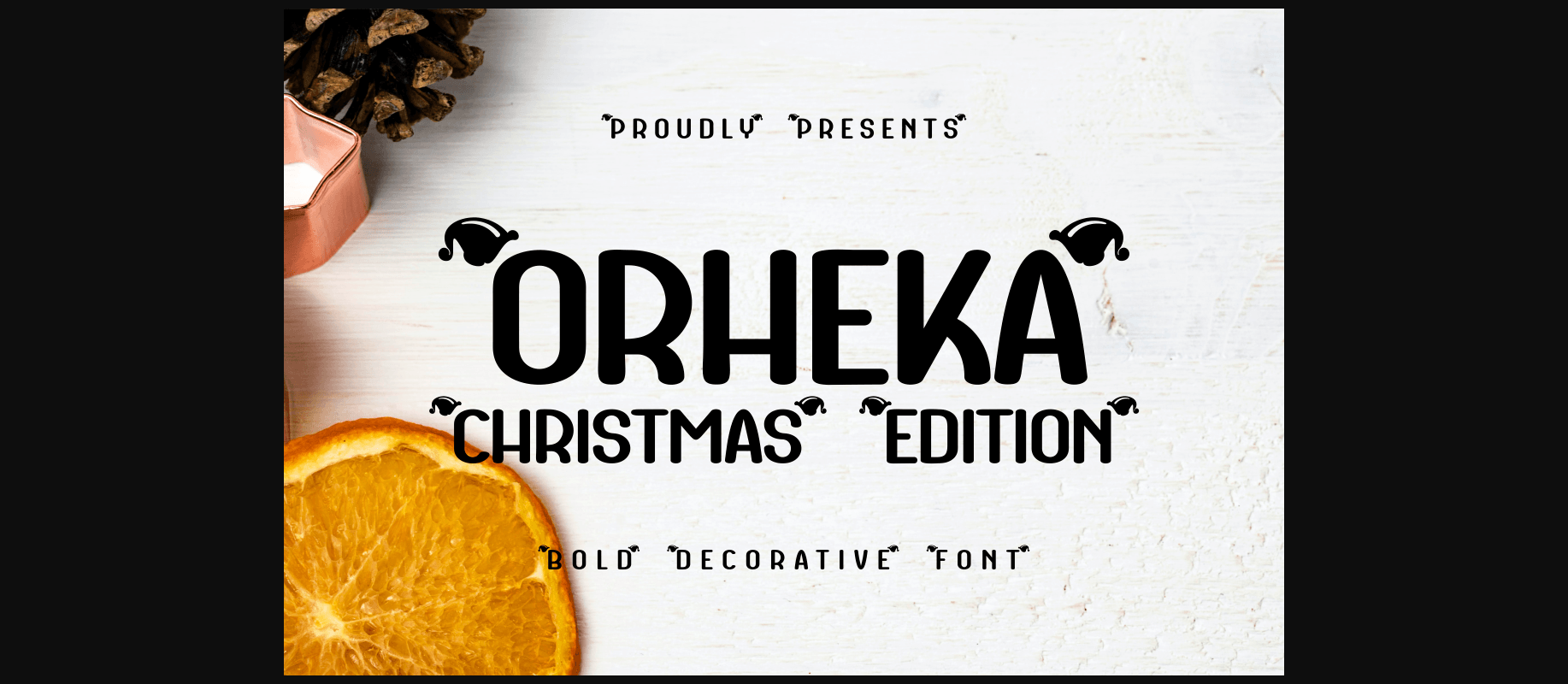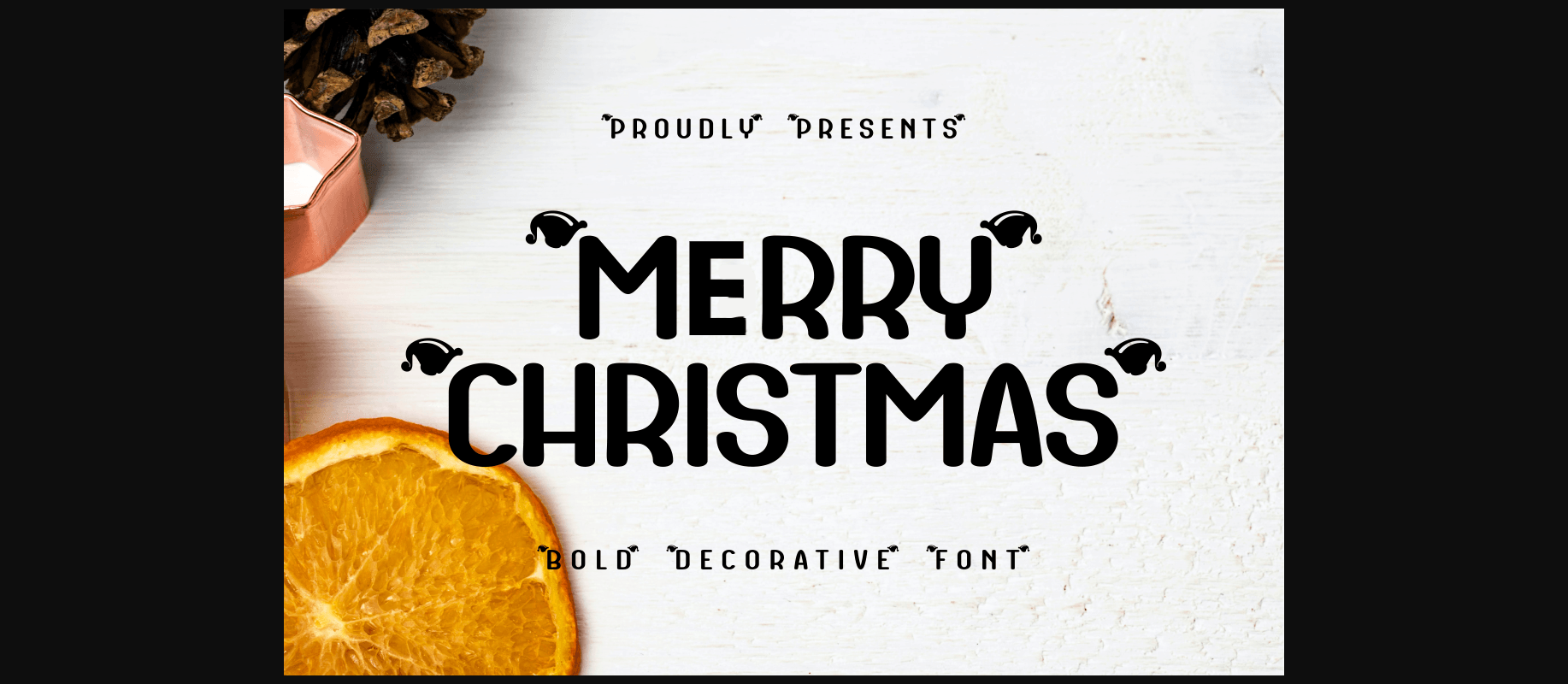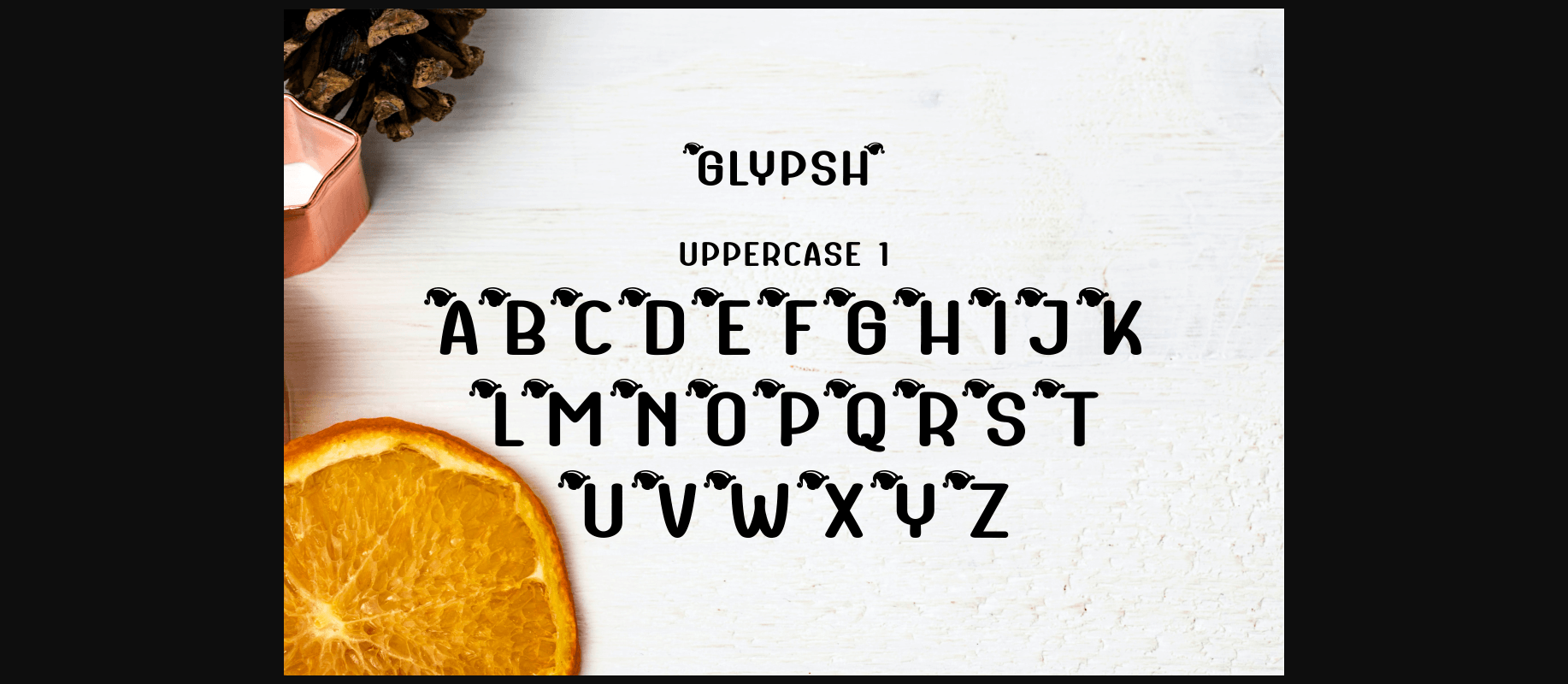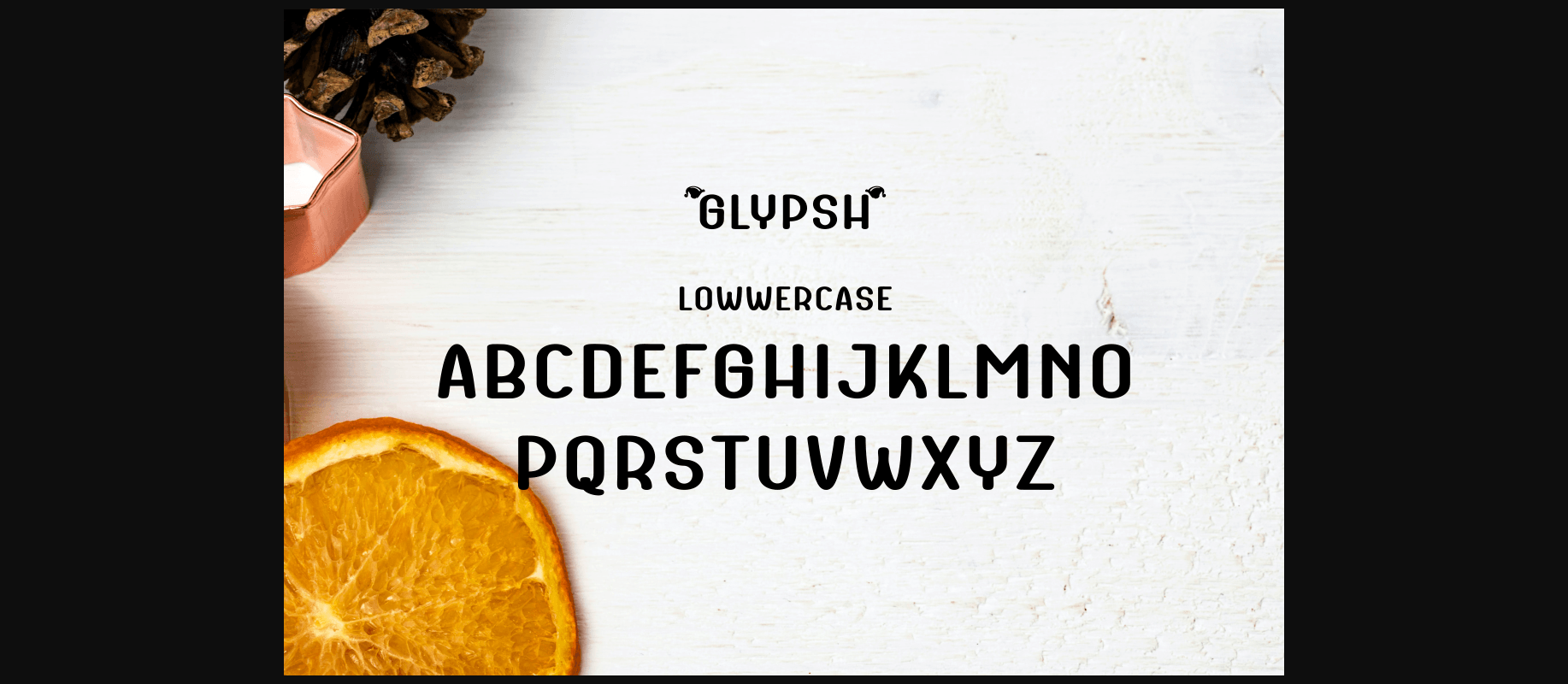
Orheka Font
About Orheka Font
Orheka is a decorative font specialized for Christmas purposes. Every character comes with the addition of ornament which refers to a very distinctive Santa hat. This font is PUA encoded, which means you can access all of the glyphs and swashes with ease!